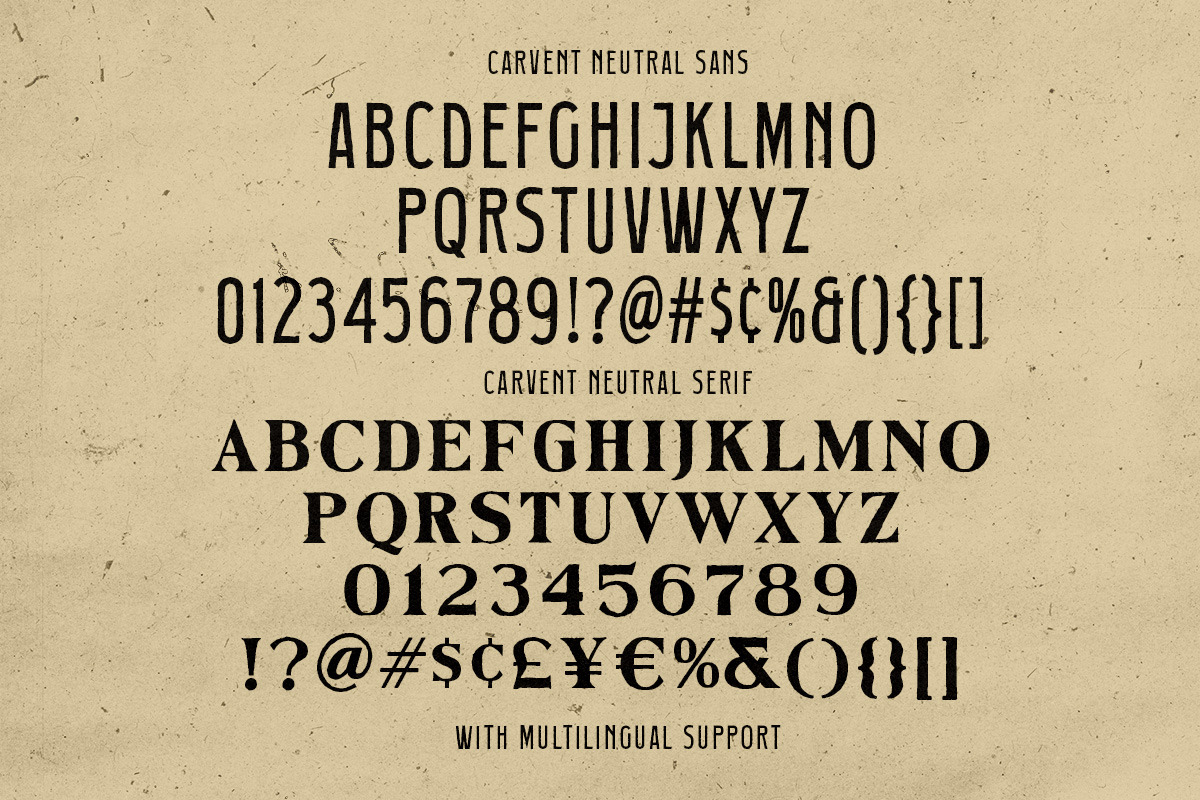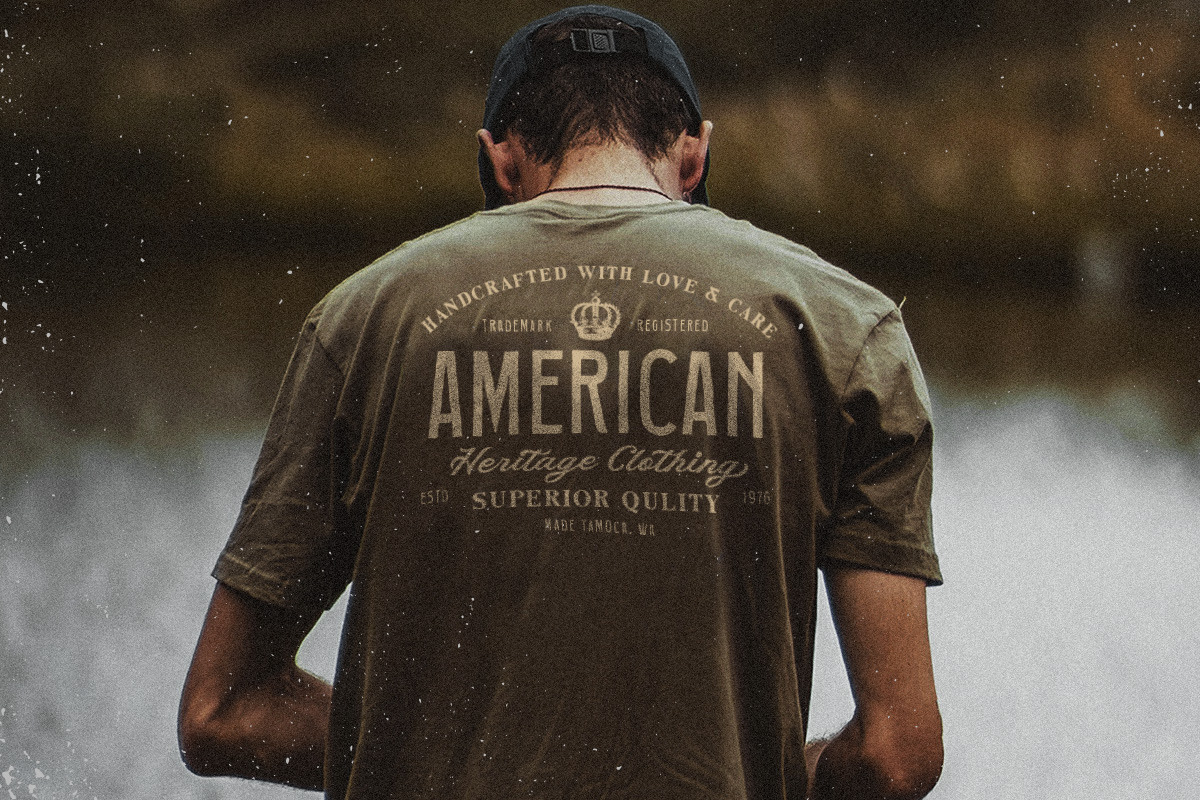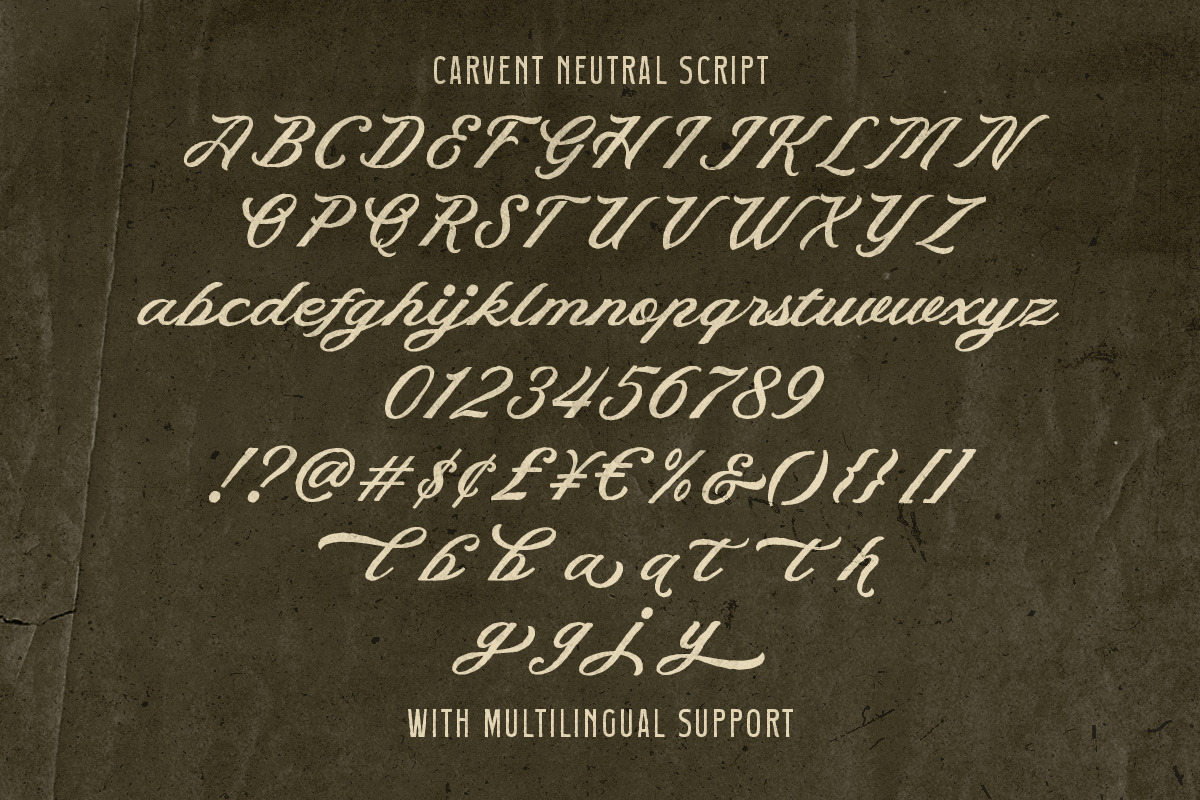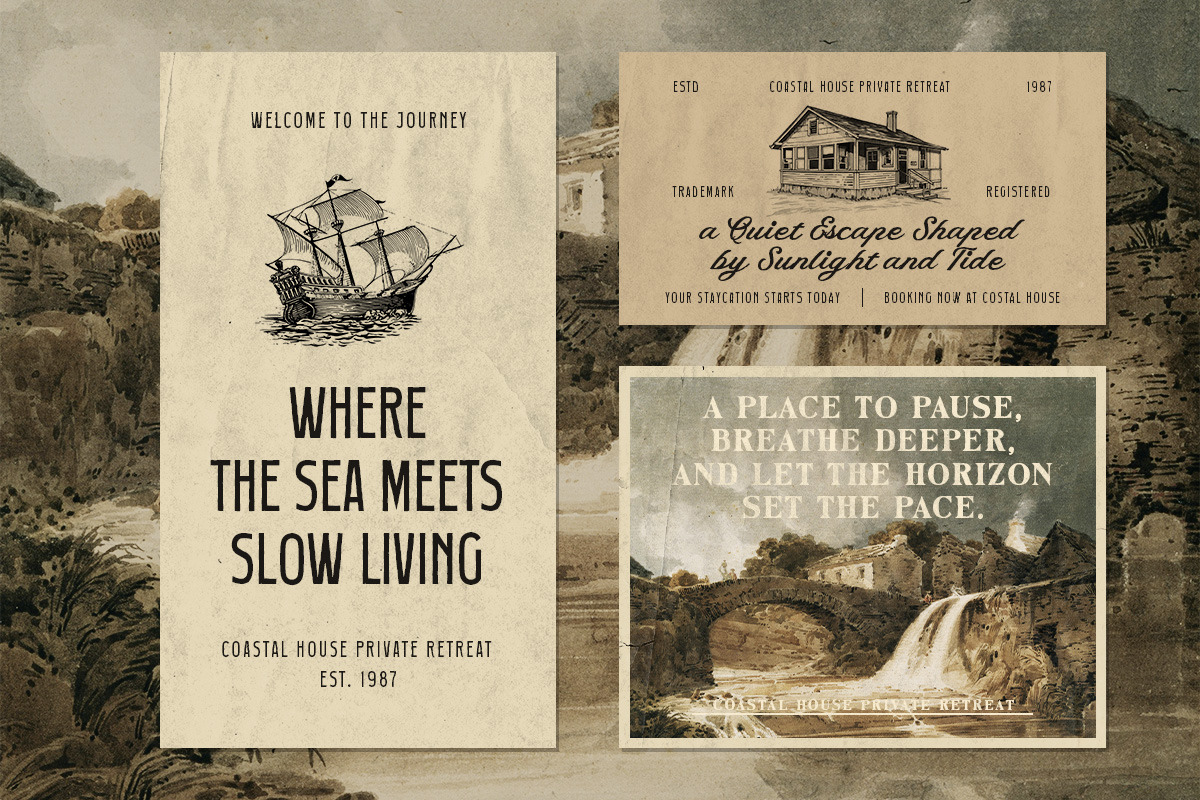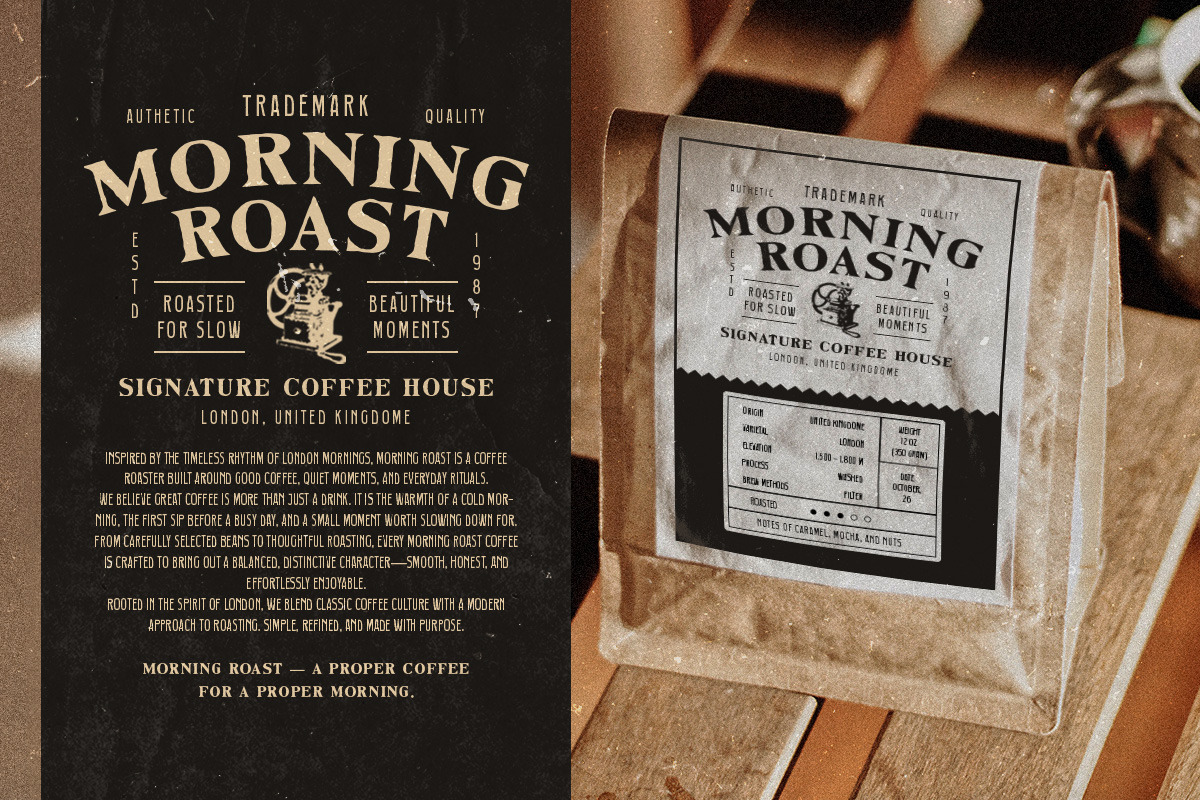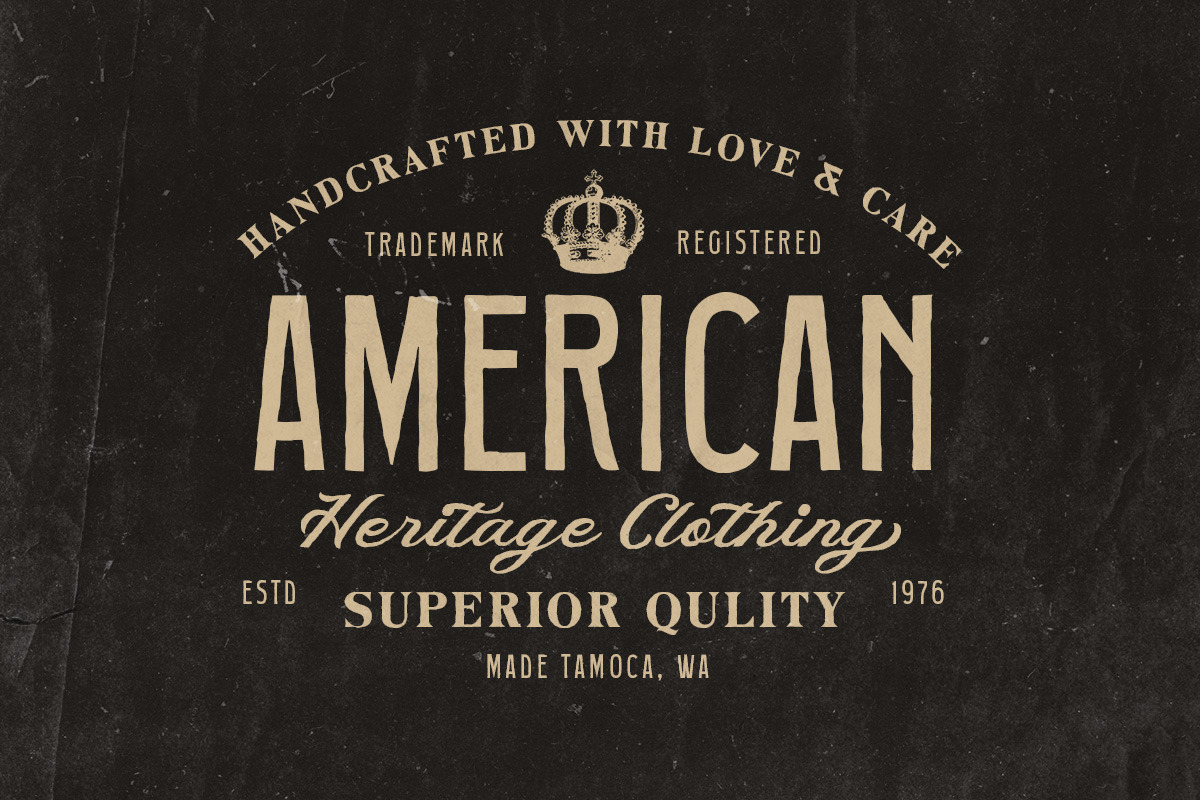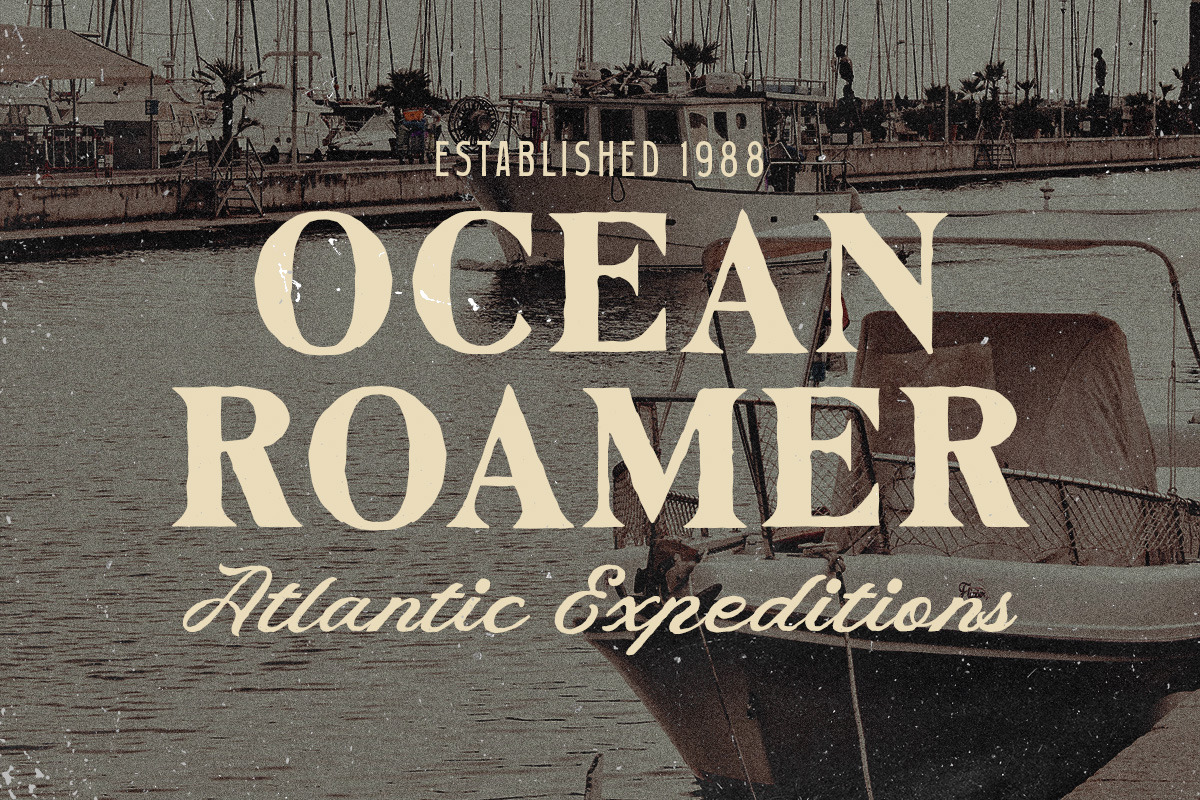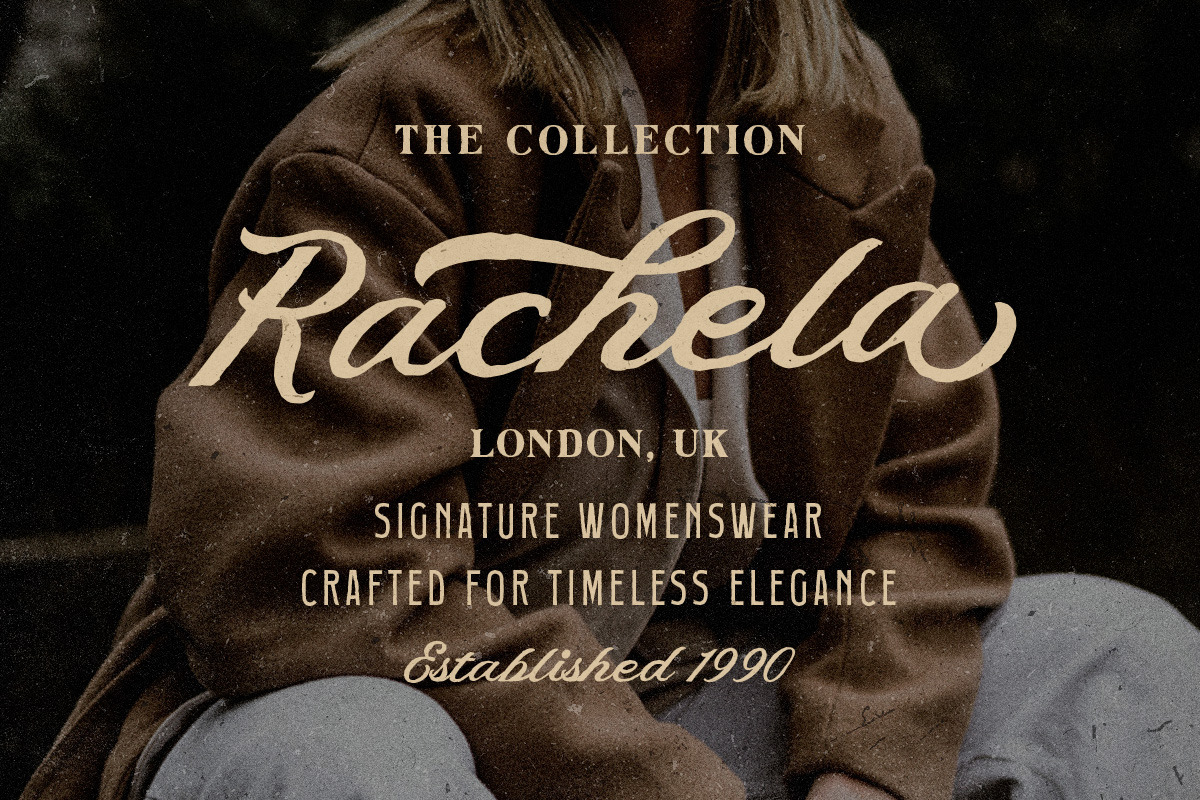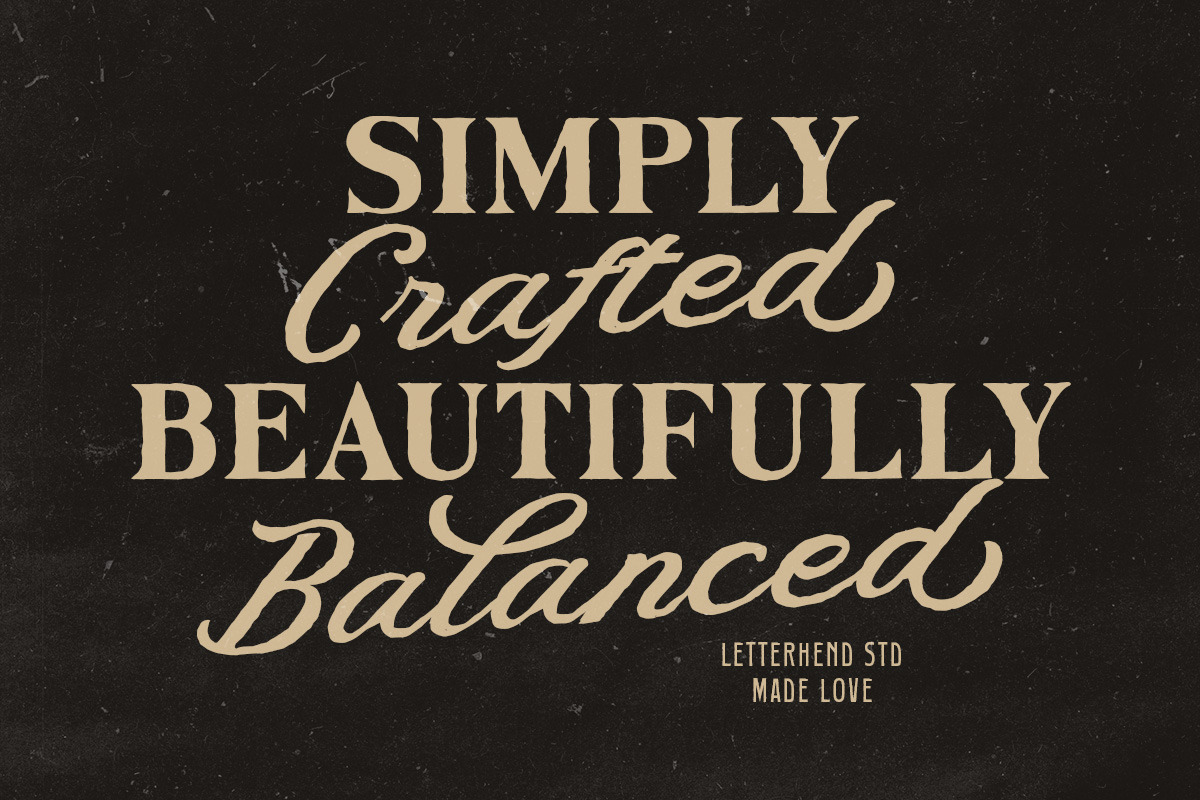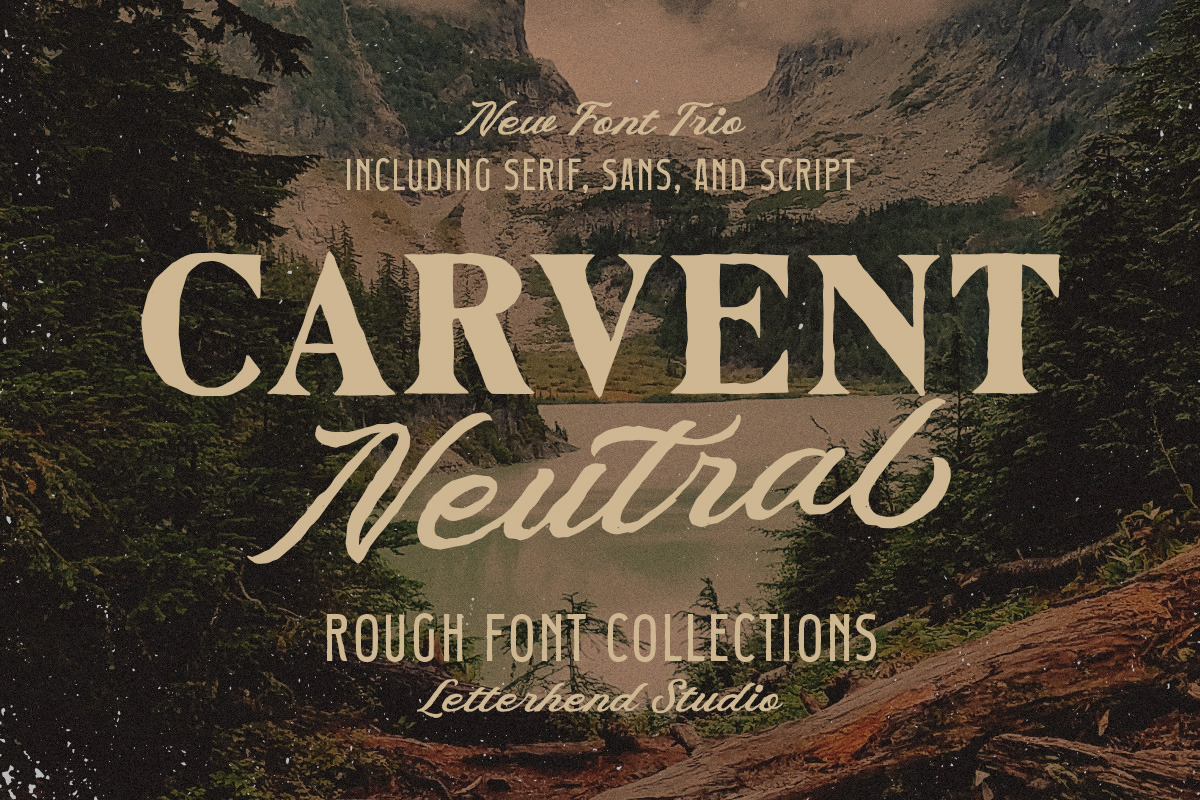
Carvent Neutral Vintage Font Trio
Carvent Neutral has a rugged vintage character made for people who feel most at home on the road, by the water, or out in the wild. Its weathered look fits naturally with fishing brands, motorcycle clubs, outdoor gear, camping goods, adventure posters, garage-inspired graphics, and heritage-style packaging. The family comes with three matching styles—serif, sans, and script—so you can combine bold headlines, clean supporting text, and expressive accents without losing that tough, classic outdoor feel.